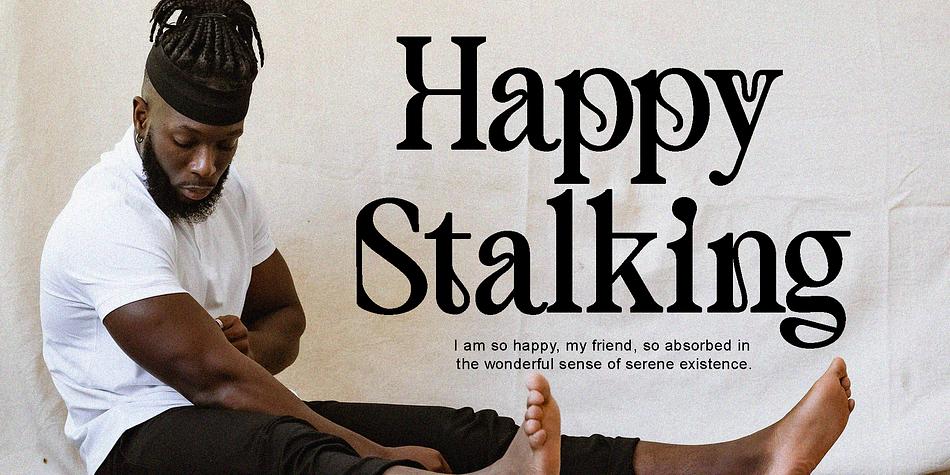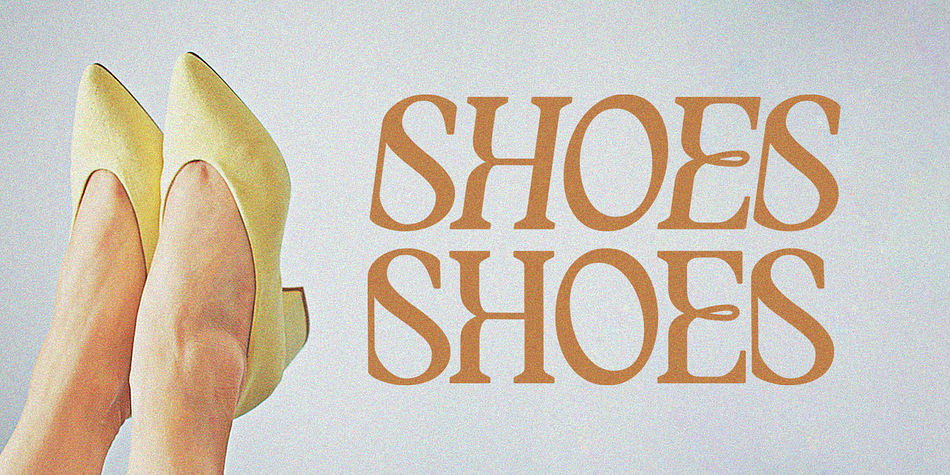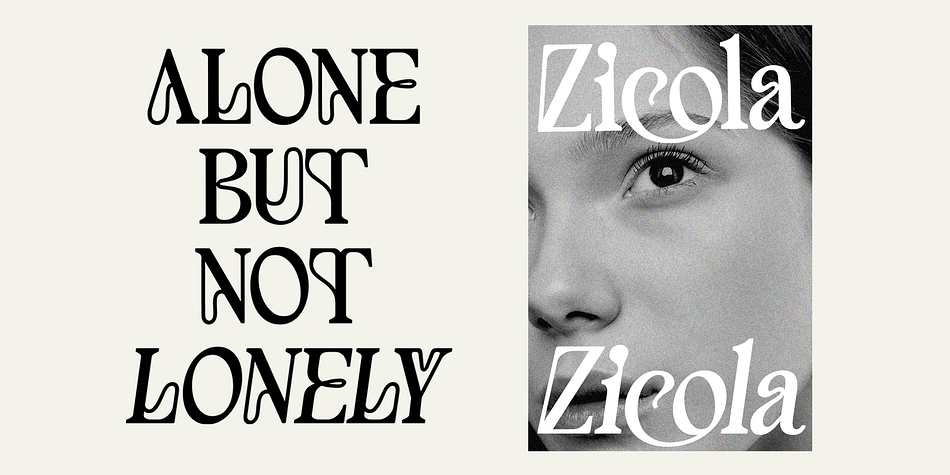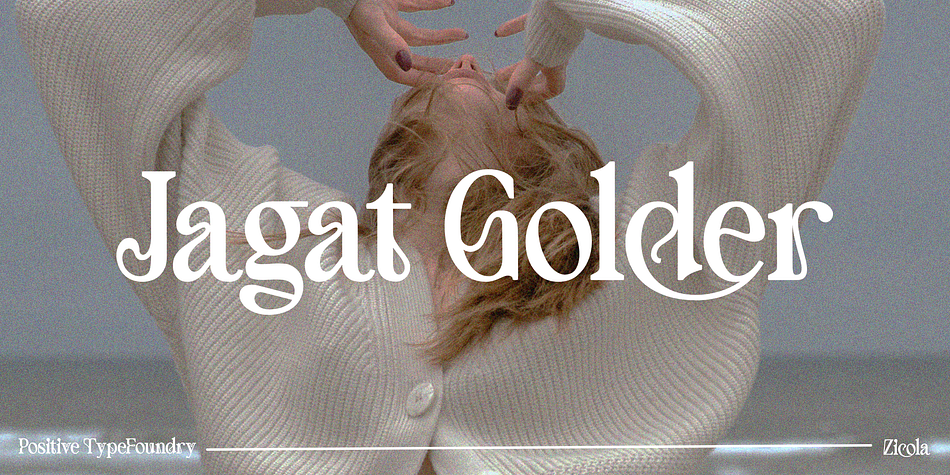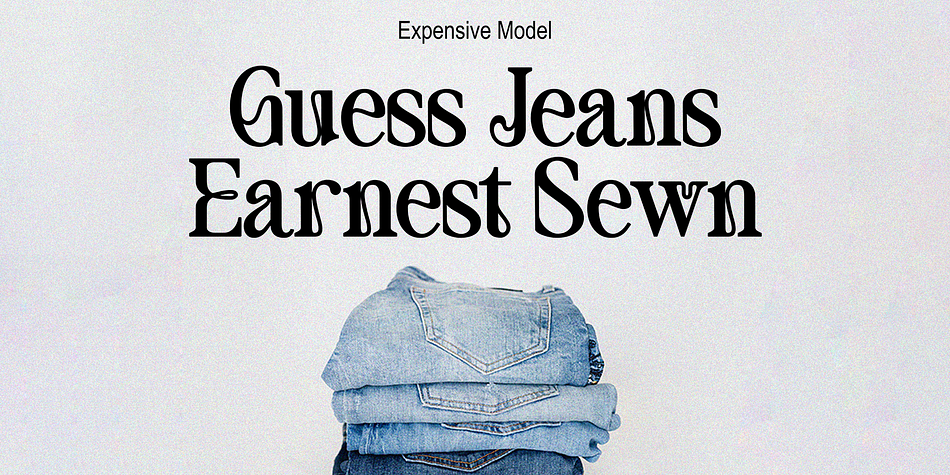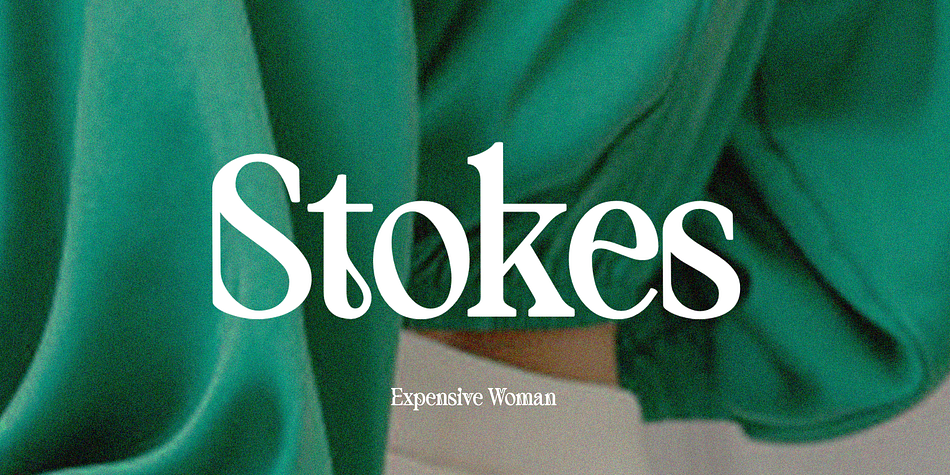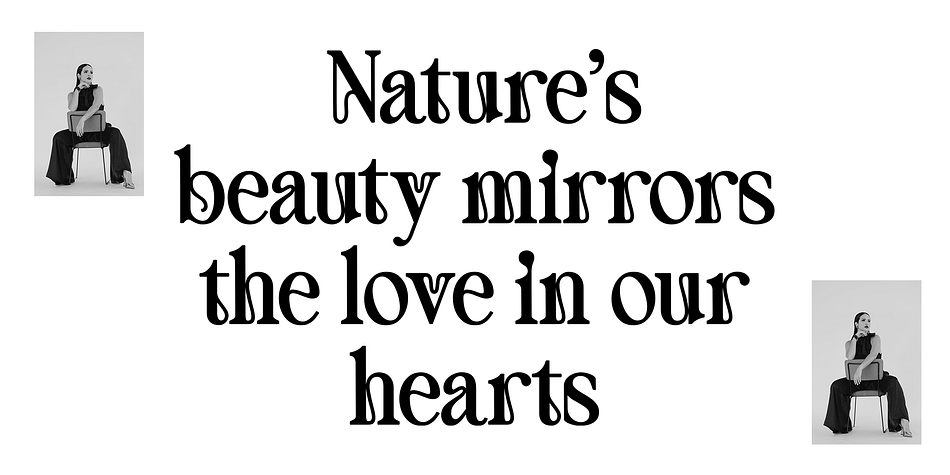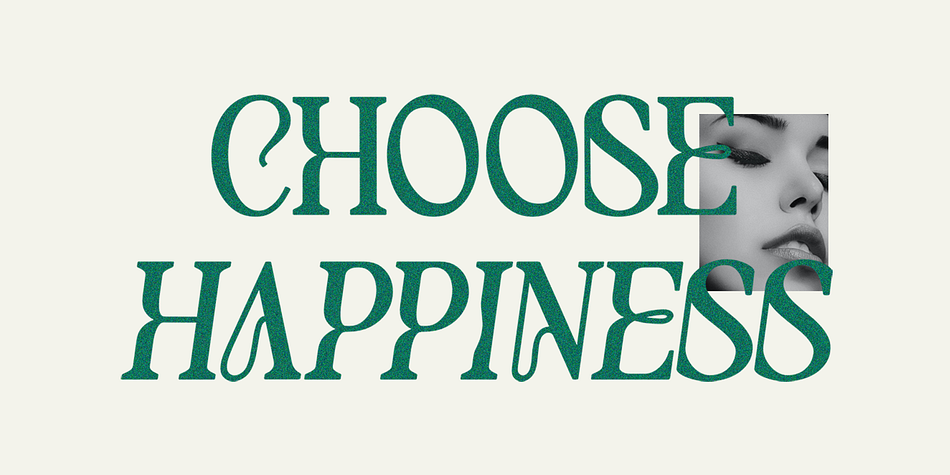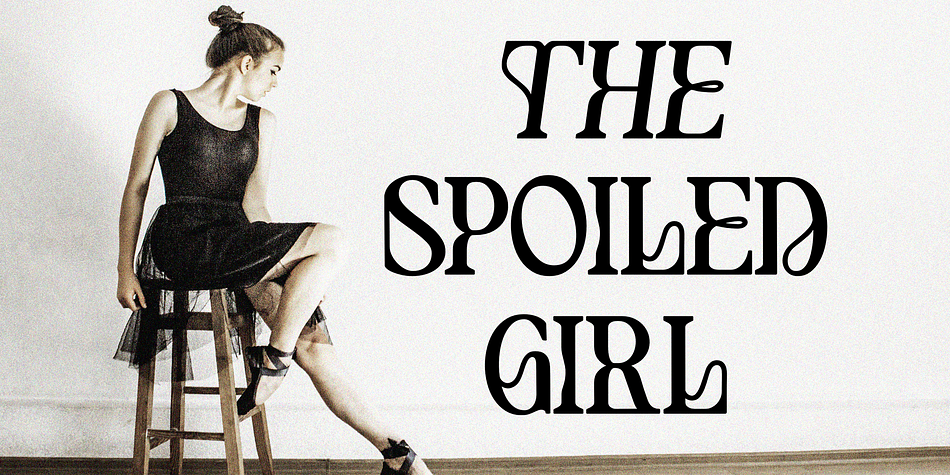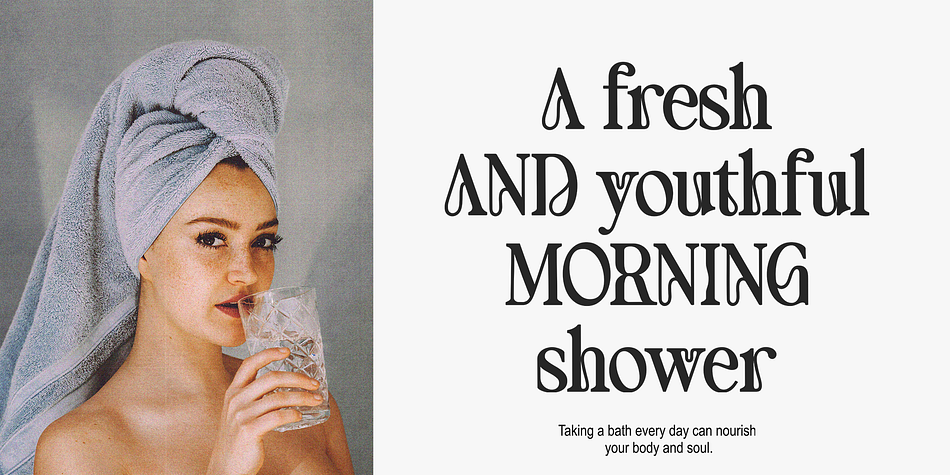
Zicola
Zicola is a display serif font family. This typeface has two styles and was published by Positive TypeFoundry.
Zicola is a unique sinuous display font. Zicola blends a very fluid style with a beautiful folded ribbon. Use it to convey desired logo designs, eye-catching posters, unique social media designs, fashion and websites. Zicola brings an elegant modern feel with the curves in each letter.